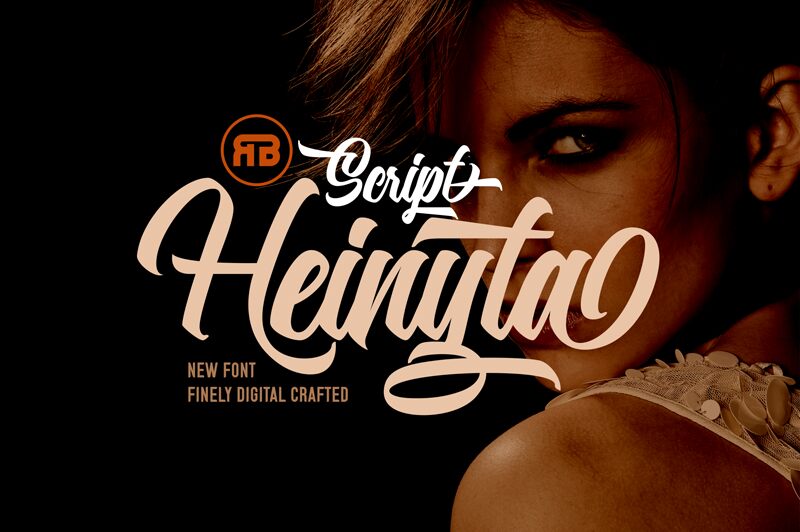
Heinyta
Heinyta font, designed by RGB Studio, is a beautiful calligraphy typeface inspired by urban script fonts. Its modern and trendy style features sharp, flowing letters with smooth curves. The sophisticated and expressive appearance adds an elegance that can elevate any design project where it’s used.
Designed by MOH. MA'IN from RGB Studio in 2023.